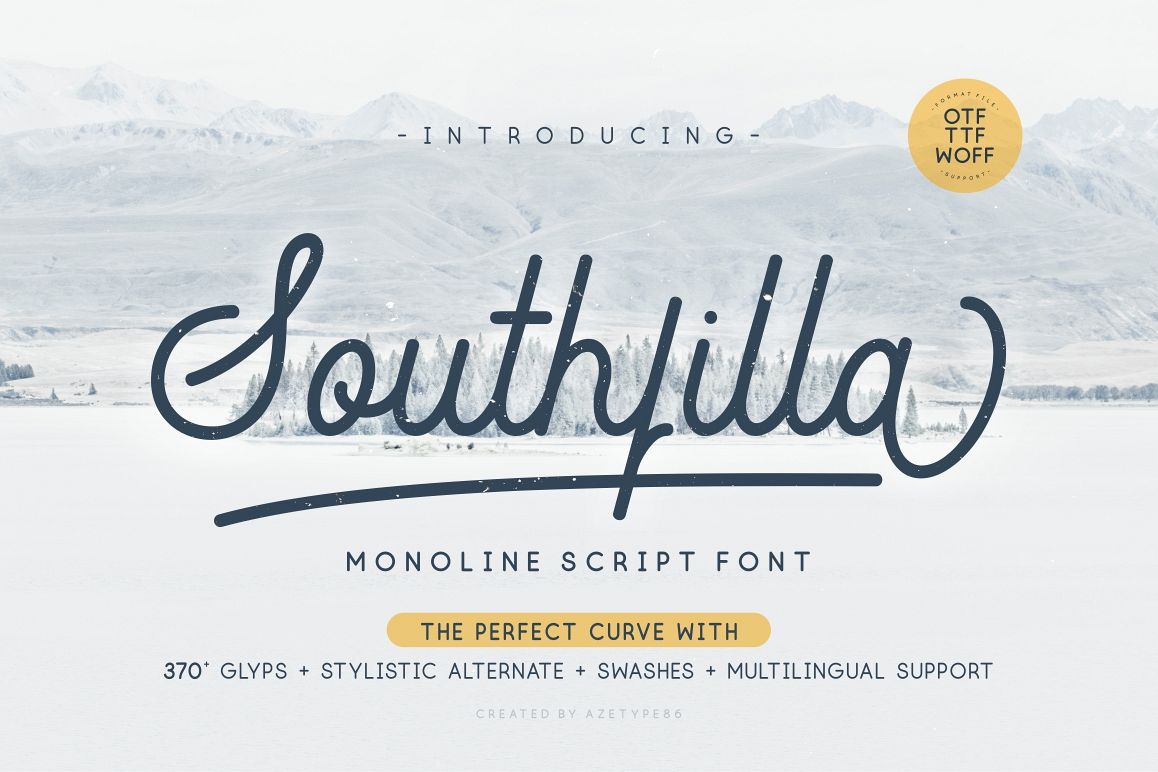
We proud to introduce our new product, namely Southfilla Monoline Script Font.
This Product made with love and consistency which in the
end looks elegant, simple, readable with The Perfect Curves, catchy, easy to used.
Southfilla Monoline Script Font is the great choice for Vintage
Stationary, Food and Drink Poster, Logotype, Wedding, Neon Style, Watermark,
Quotes, and your other design projects.